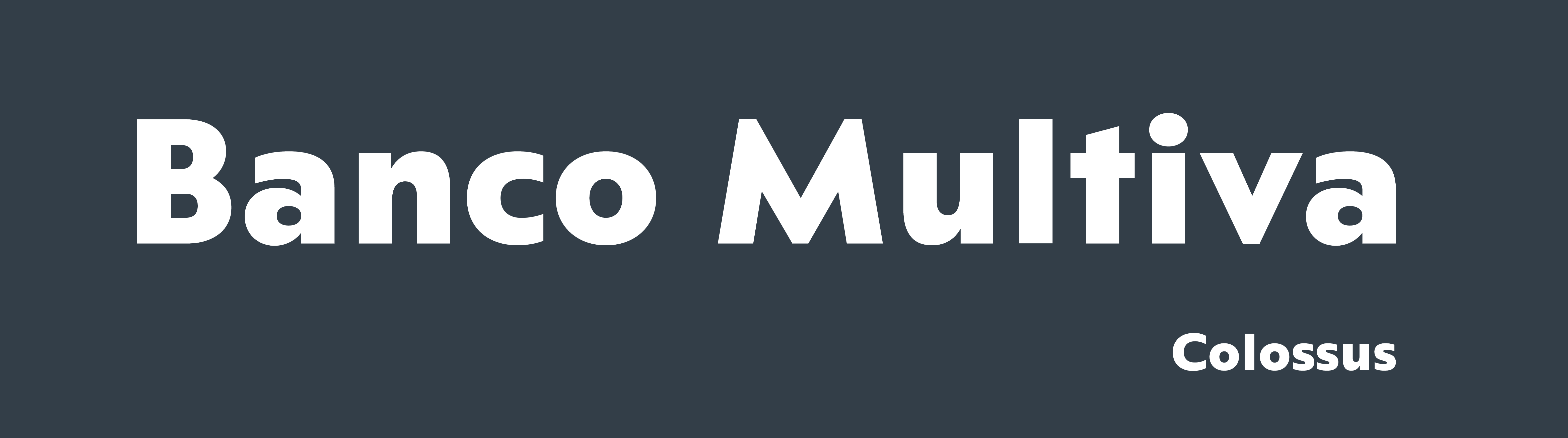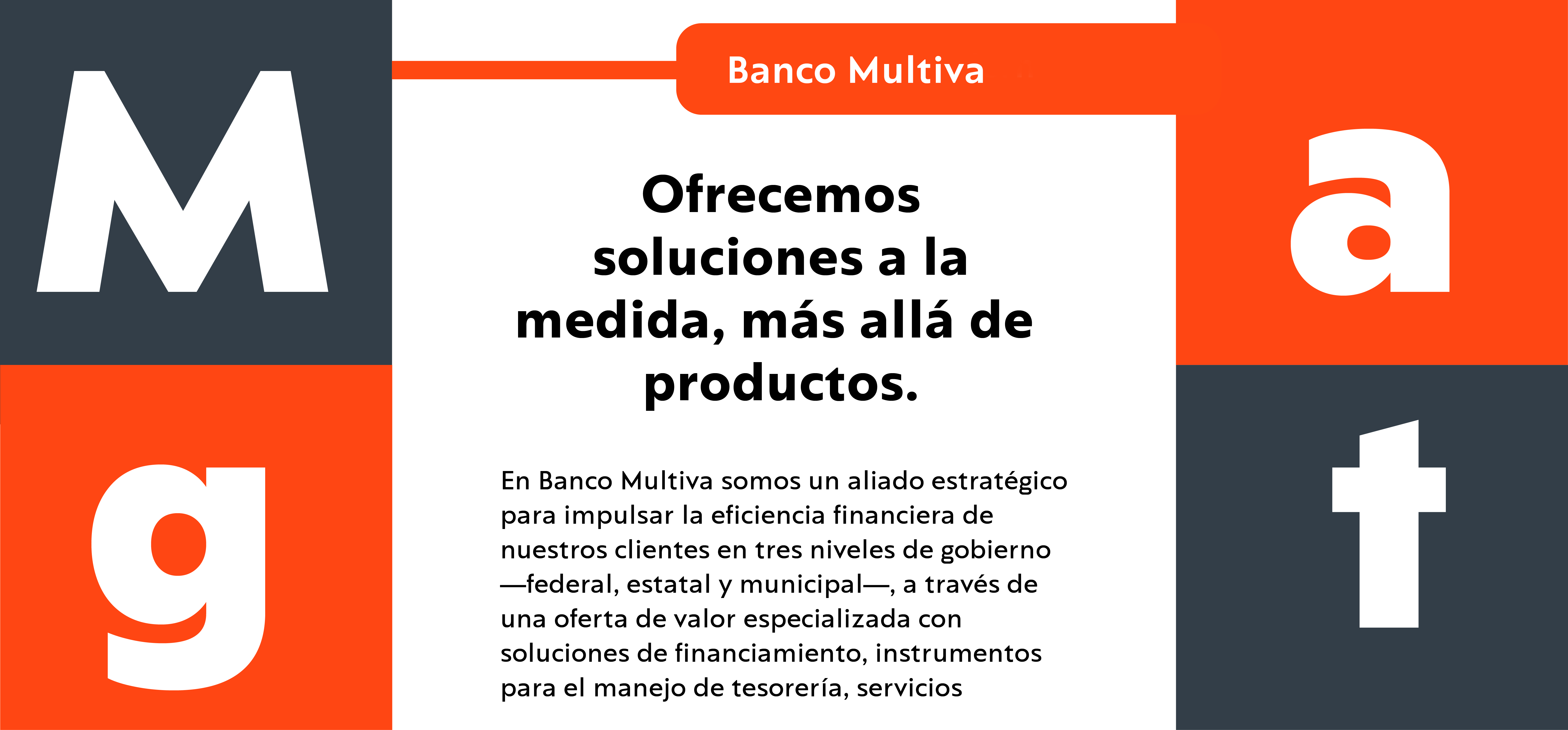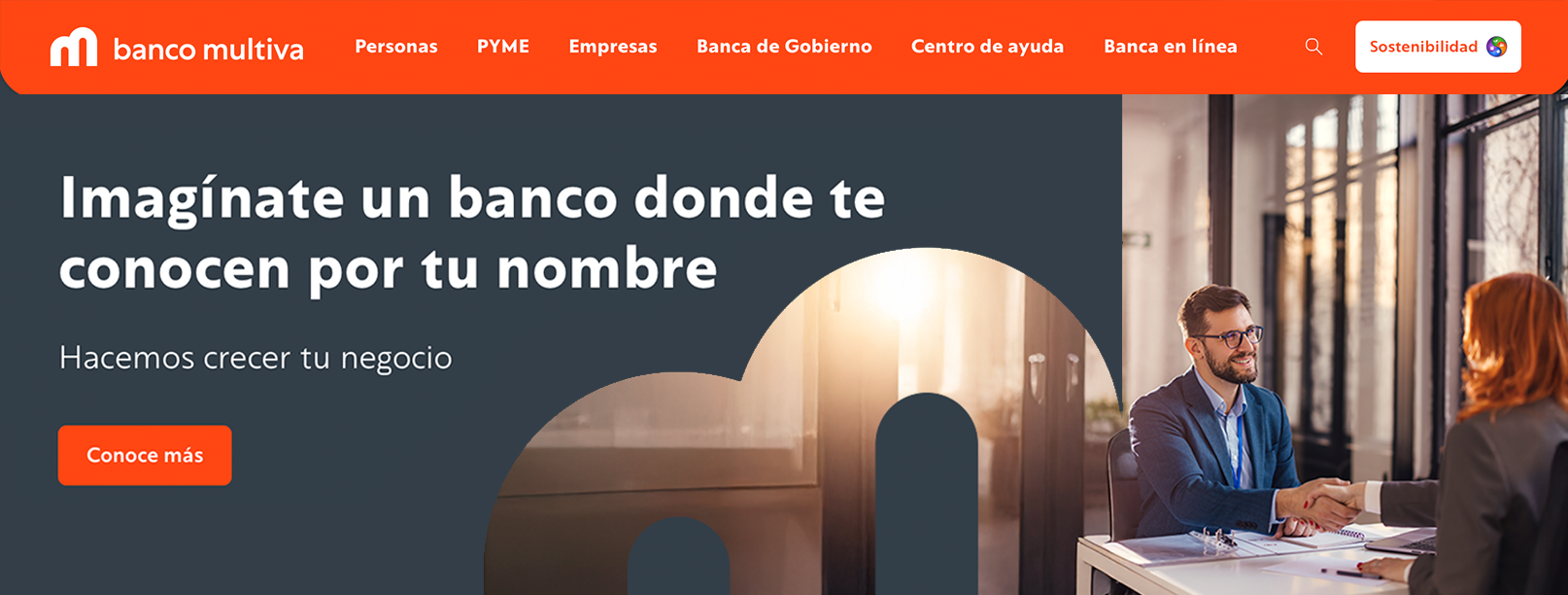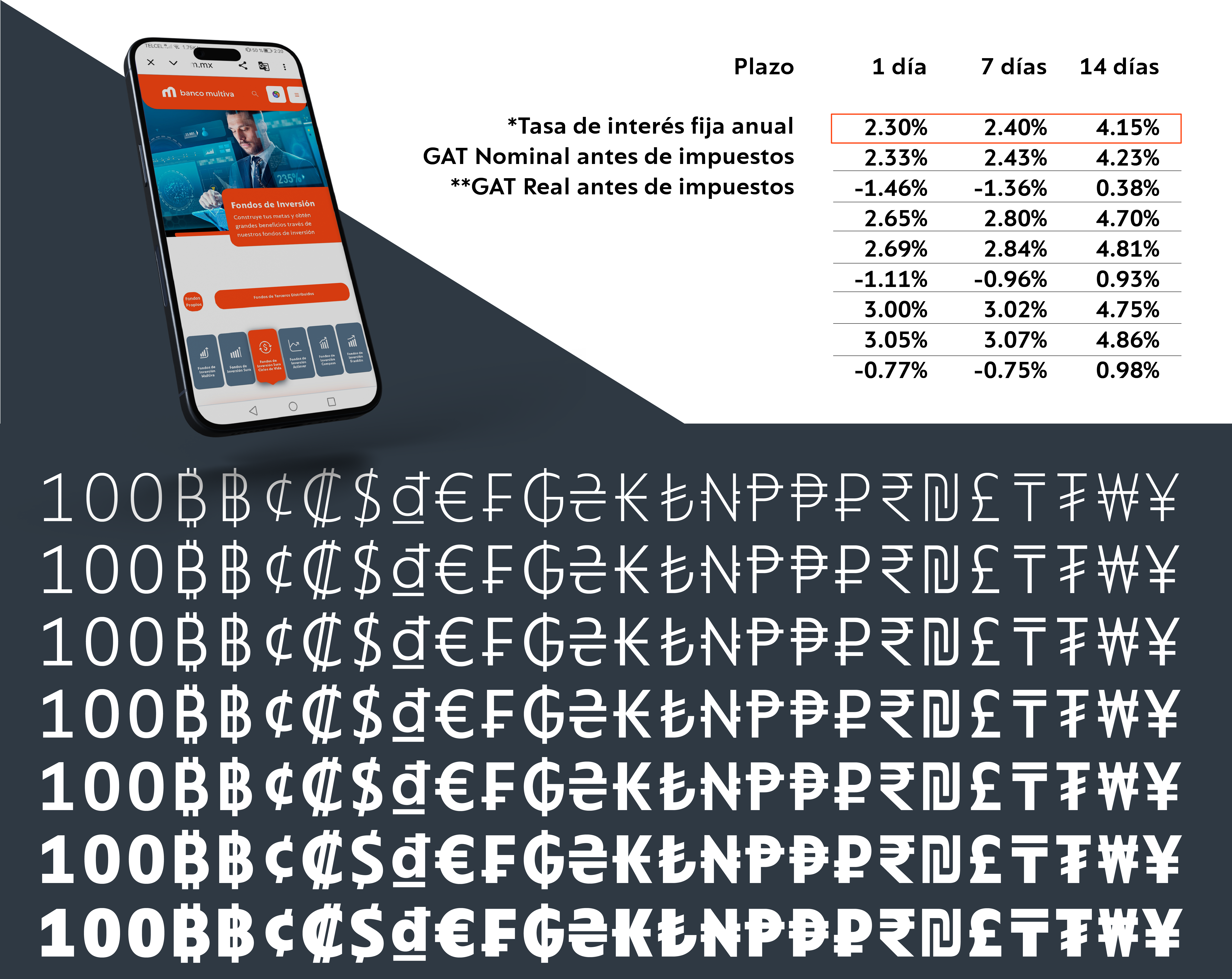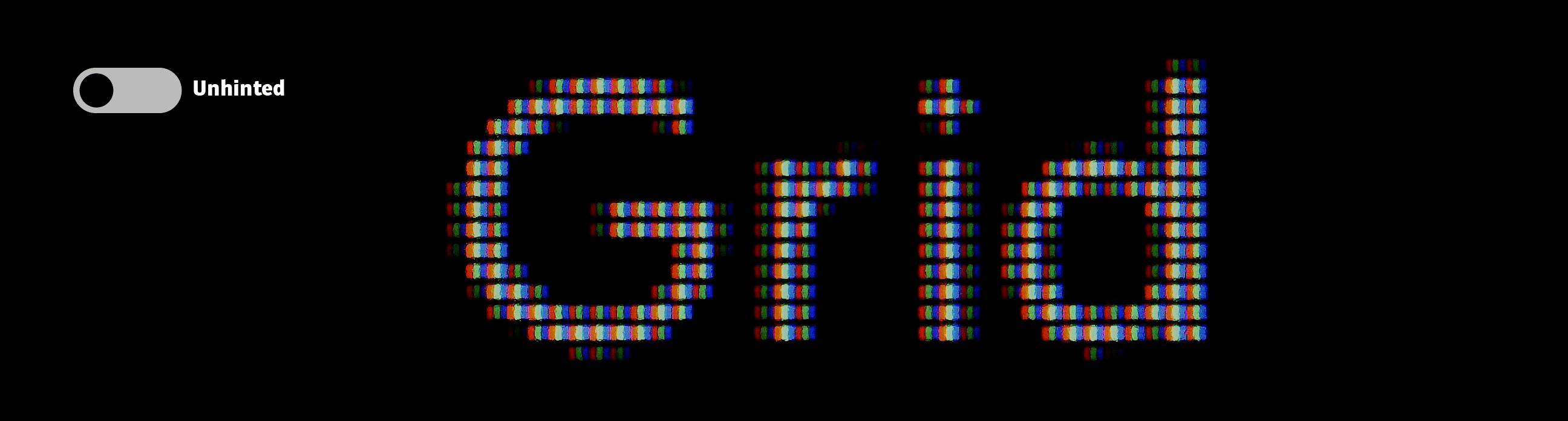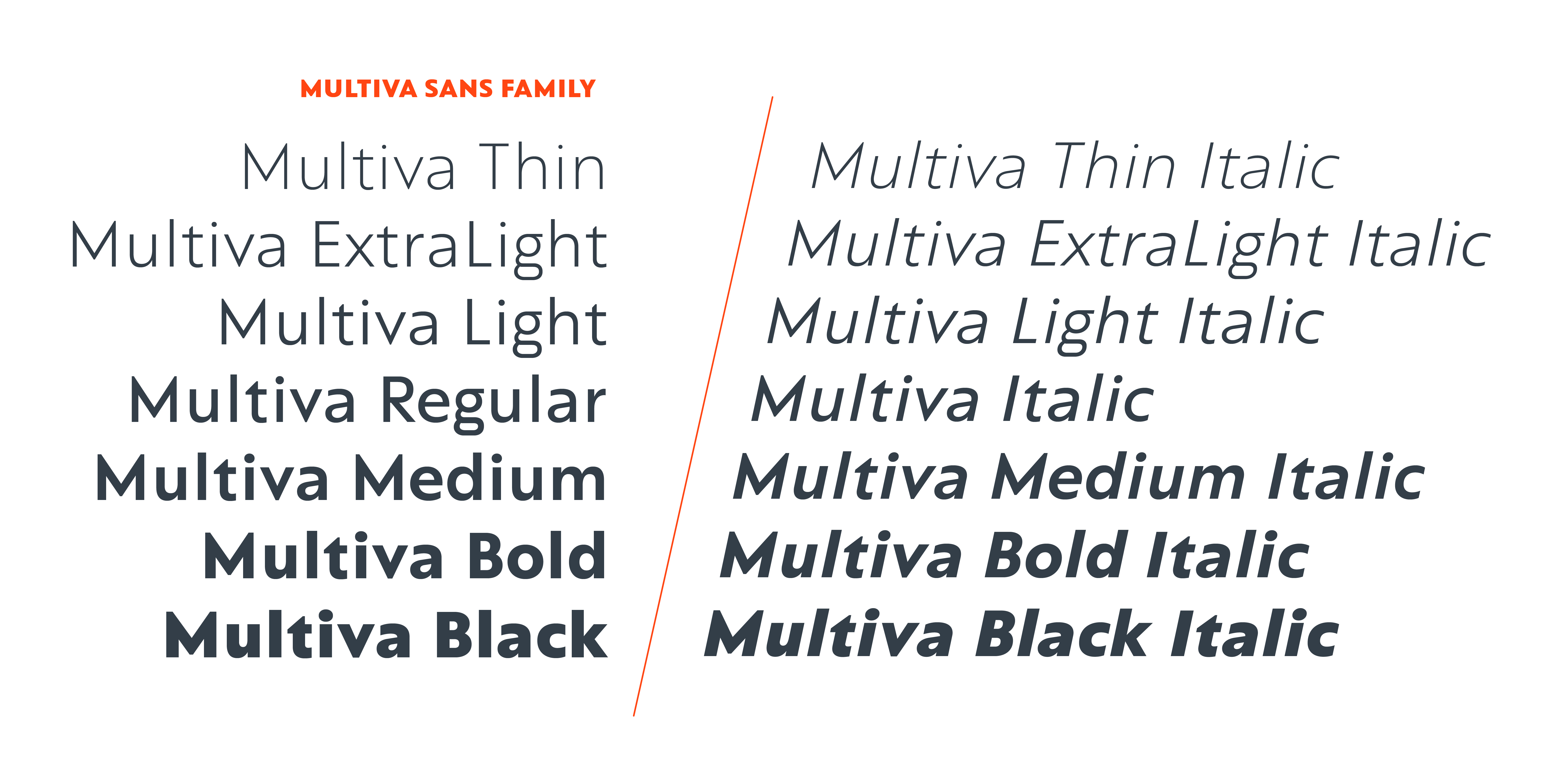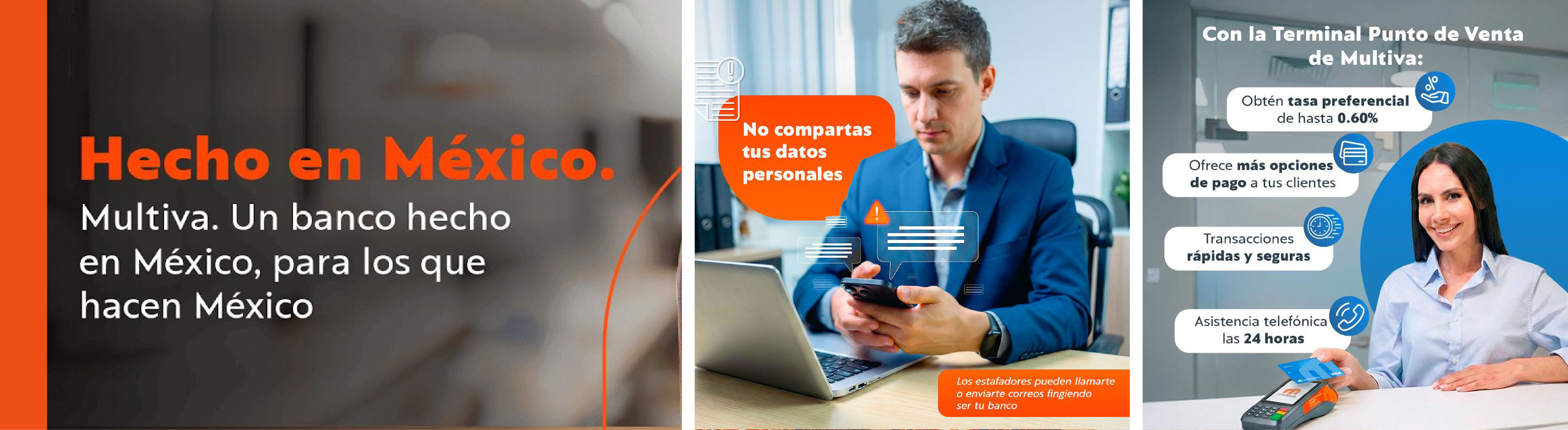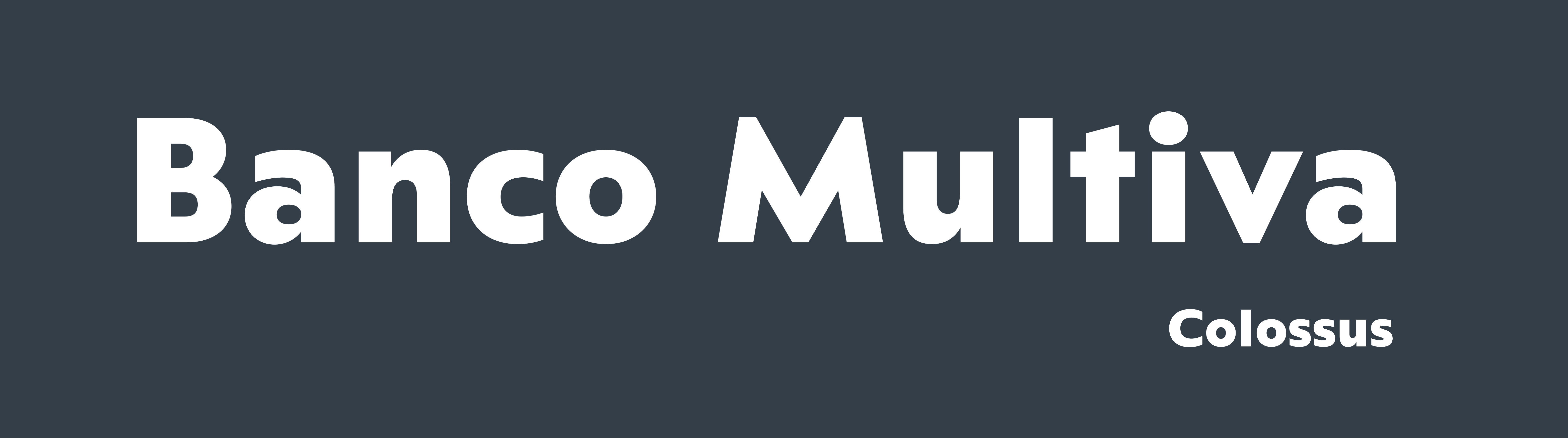
Multiva
A typeface family developed for the rebranding of Multiva, a financial institution. With the brand redesign led by Forum Studio, the project focused on building a cohesive typographic system aligned with the bank’s evolution and future direction.
This project was developed in collaboration with LechugaType and involved customizing of our existing typeface Colossus. The typeface was selected as a foundation due to its strong compatibility with the logo’s shapes, effectively reinforcing the bank’s identity.
Adapted and expanded under the name Multiva Sans, it became an exclusive asset for the brand — a typeface family comprising seven weights with matching italics, designed to scale alongside the bank’s growth.
The process focused on preparing the typeface to perform across a wide range of scenarios, both in print and digital environments. First, we slightly increased the ascender proportions to improve readability in body text, particularly in long-form content such as contracts.
We then refined several key characters, including the /M/ — the bank’s flagship letter — as well as the /a/, /g/, and /t/, strengthening the typeface’s distinctive voice.
The character set was expanded to meet the bank’s diverse communication needs. We added tabular figures, currency and mathematical symbols, to ensure optimal performance in tables and financial documentation
Finally, given its digital focus, manual hinting was applied to optimize rasterization on Windows and Android, ensuring crisp and consistent screen rendering and a smaller file size.
The result is a robust and versatile typographic system that strengthens Multiva’s identity while ensuring clarity, consistency, and performance across all applications. Multiva Sans not only responds to the functional demands of a financial institution but also embodies the precision, reliability, and forward-looking vision that define the bank’s new era.